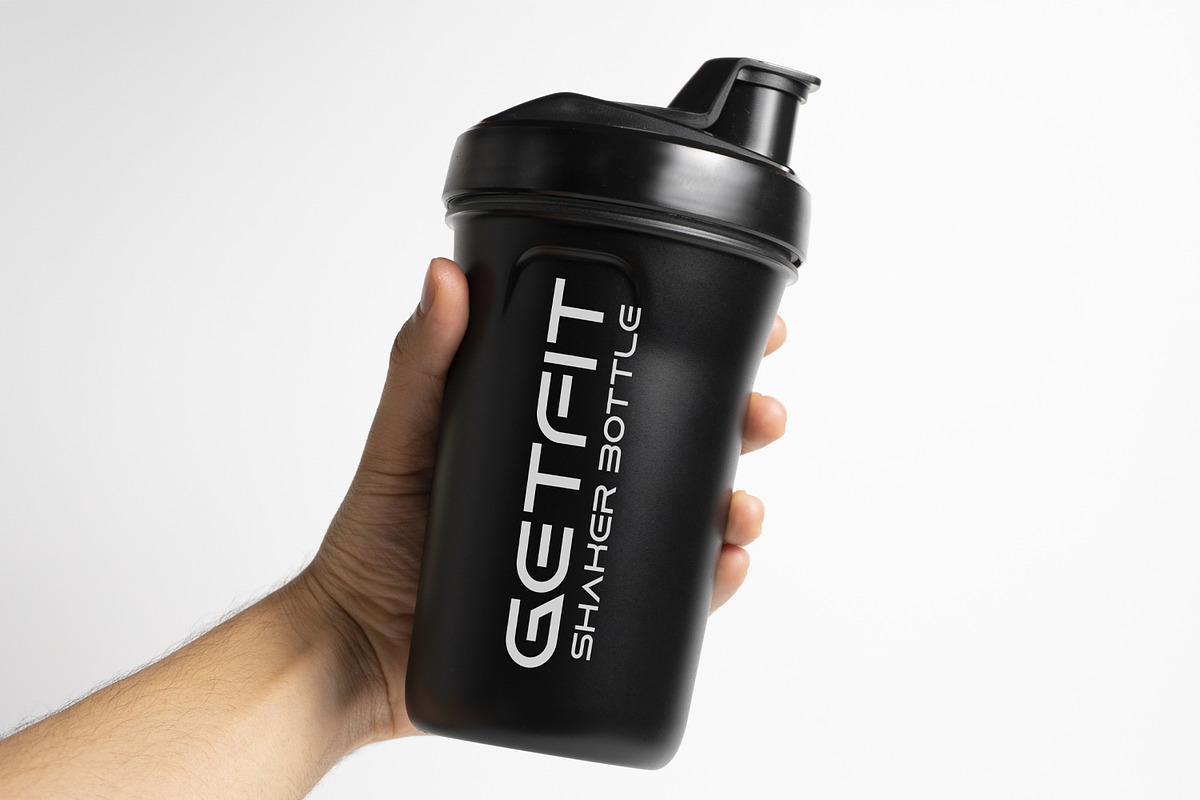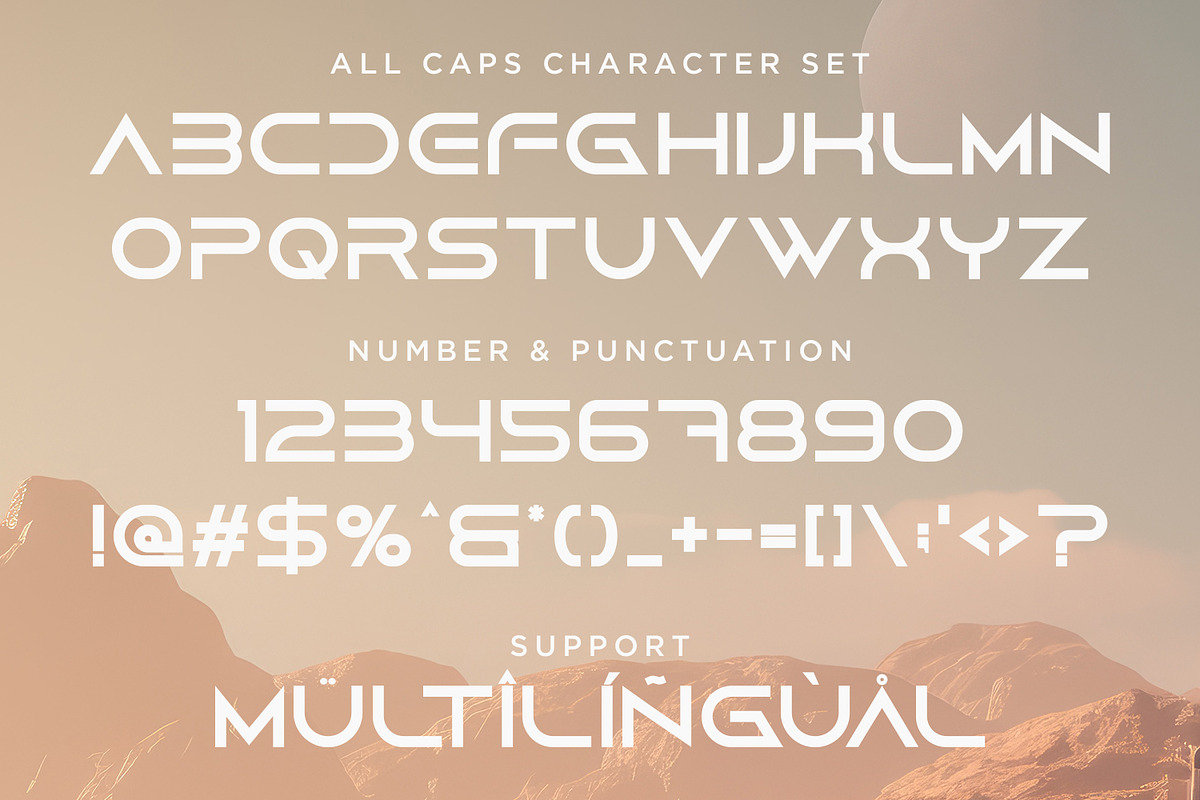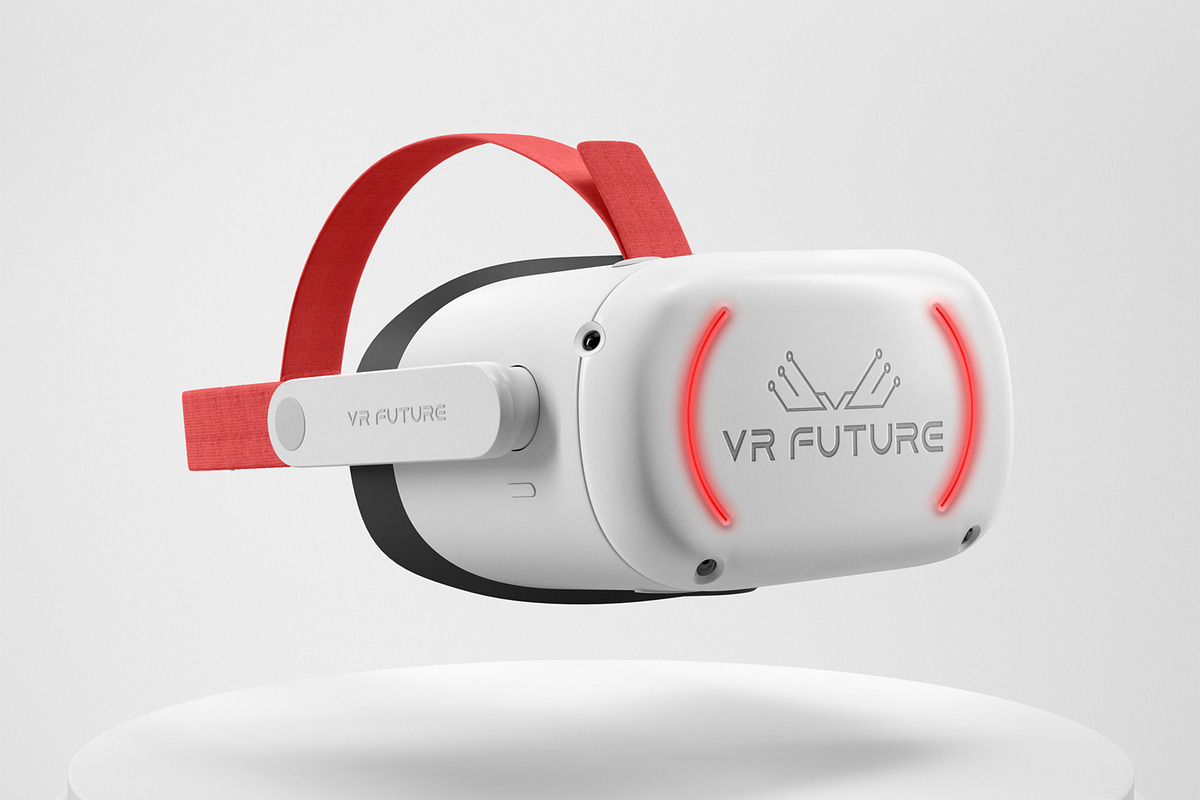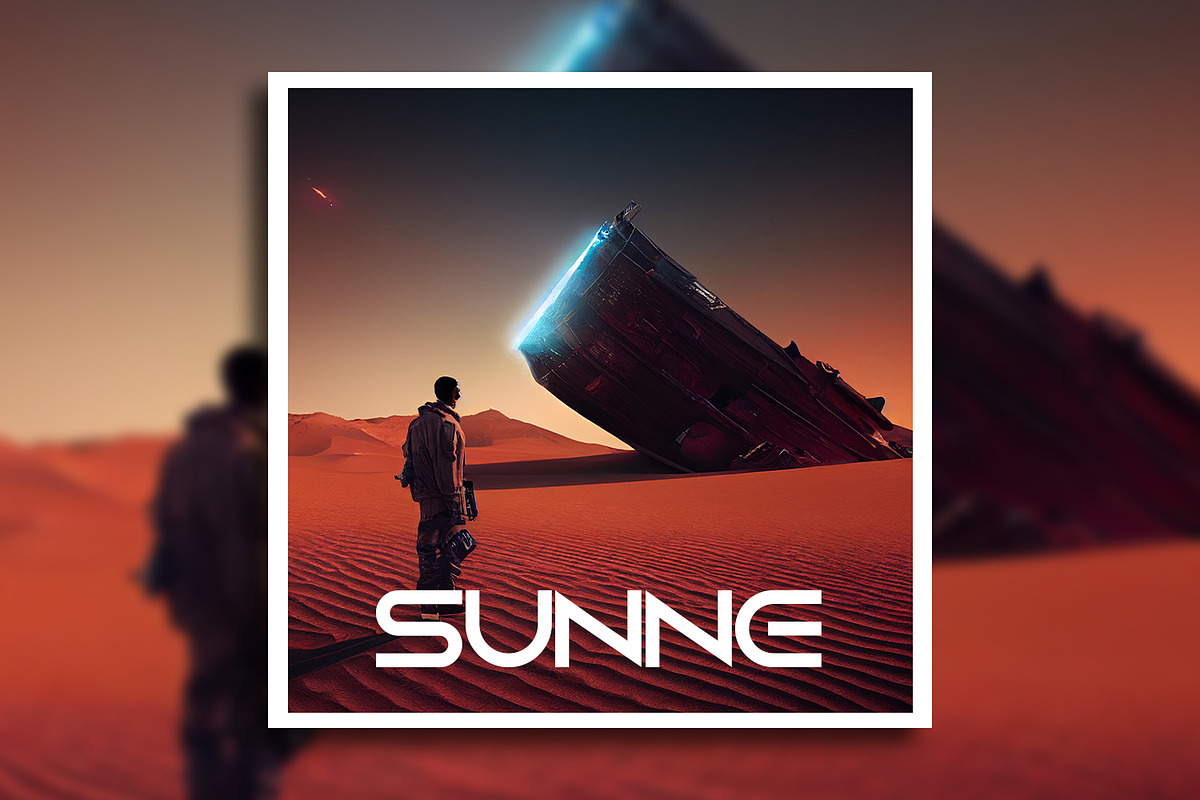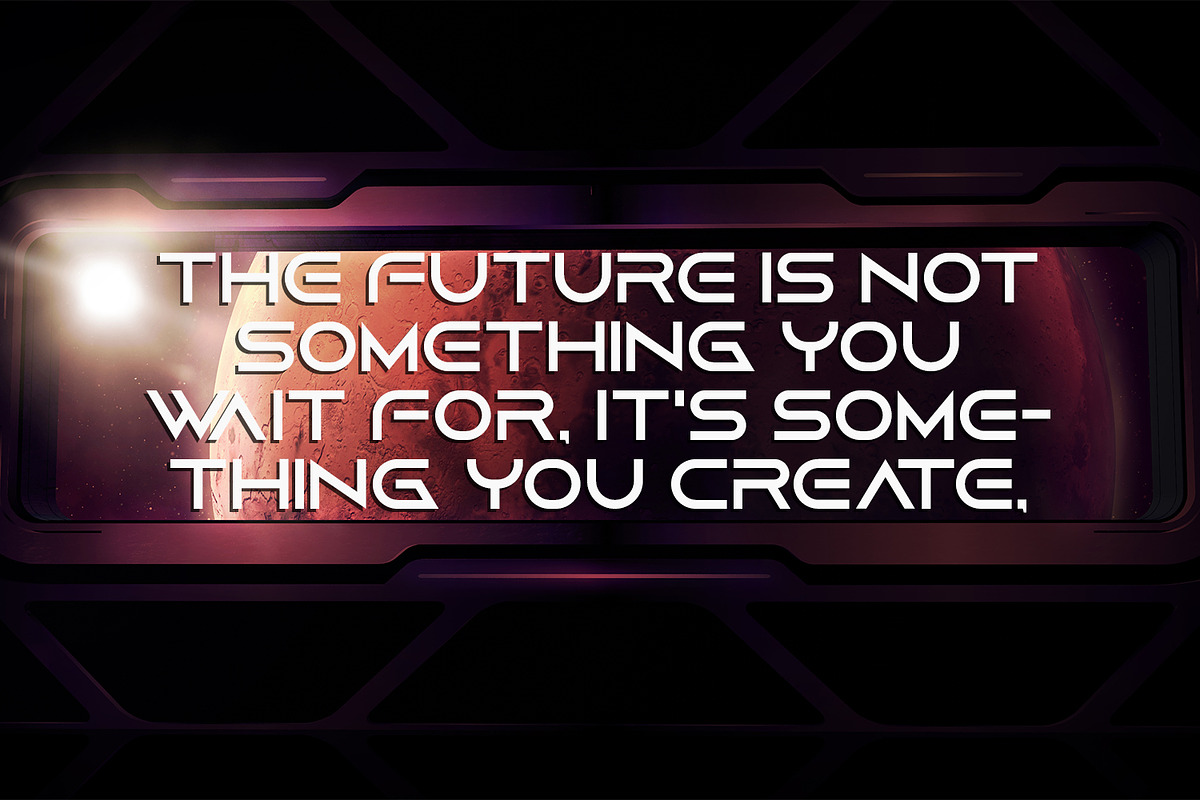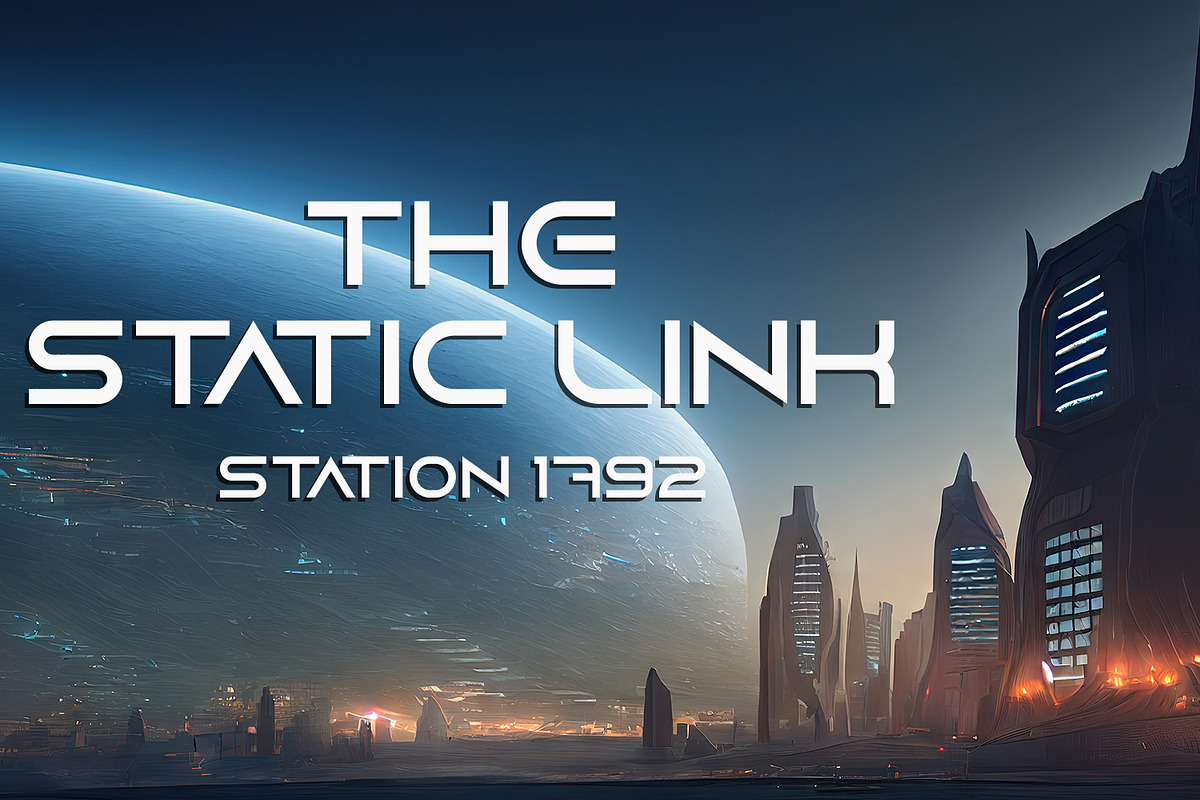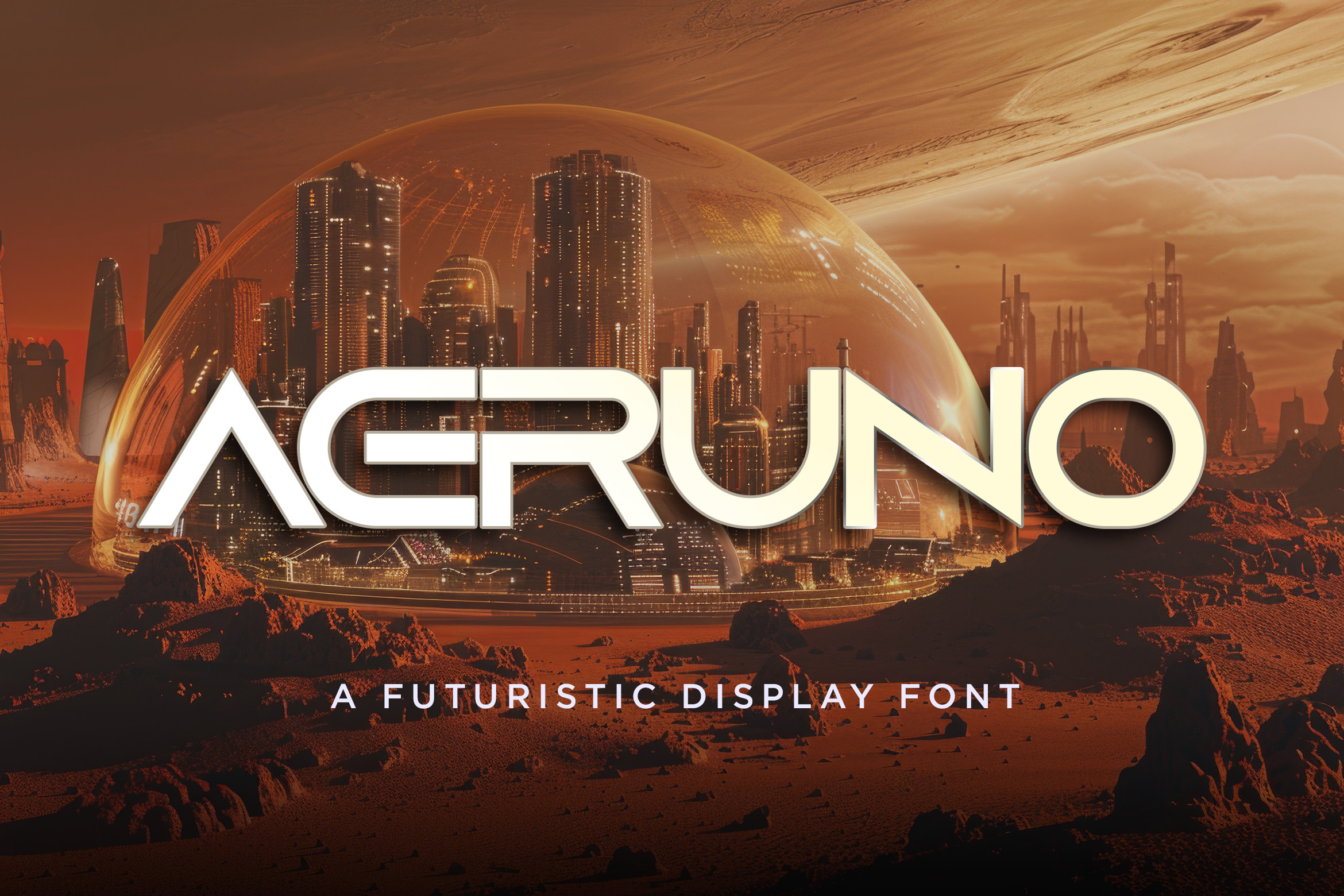
Aeruno - Futuristic Display Font
Aeruno is A Futuristic Display Font
Aeruno is a modern, minimal, and clean Font with uppercase multilingual letters, numbers, punctuation, and alternate letters.
This typeface embodies a futuristic aesthetic, perfect for branding, technology, UI/UX design, posters, and any creative endeavor requiring a sleek and professional touch. Its refined curves and balanced structure create a harmonious visual flow, making it both elegant and highly legible.